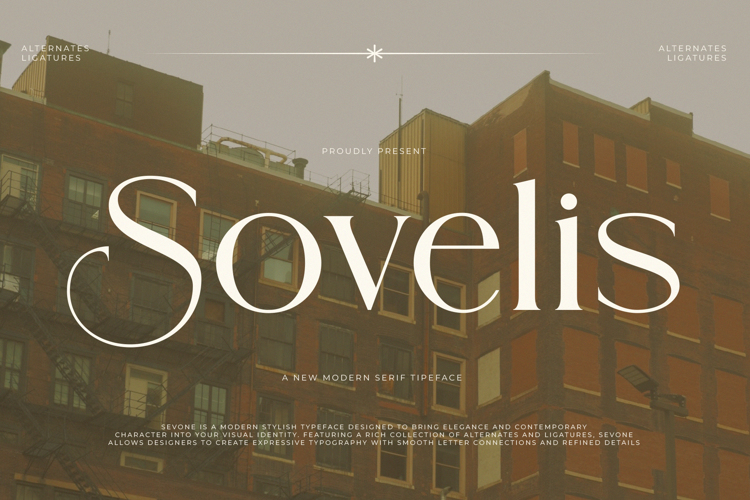
Sevone Font
Sevone is a sophisticated high-contrast serif with a luxurious modern character. Delicate wedge serifs, dramatic thick-thin contrast, and an elegant sweeping Q tail bring a polished, high-fashion style to wedding stationery, luxury branding, logos, editorial headlines, and upscale packaging. Free for personal use; a commercial license is available from the designer.
Sevone Font is a Didone font and was created on . Sevone Font has been downloaded 247 times, added to 5 collections, and liked 0 times.